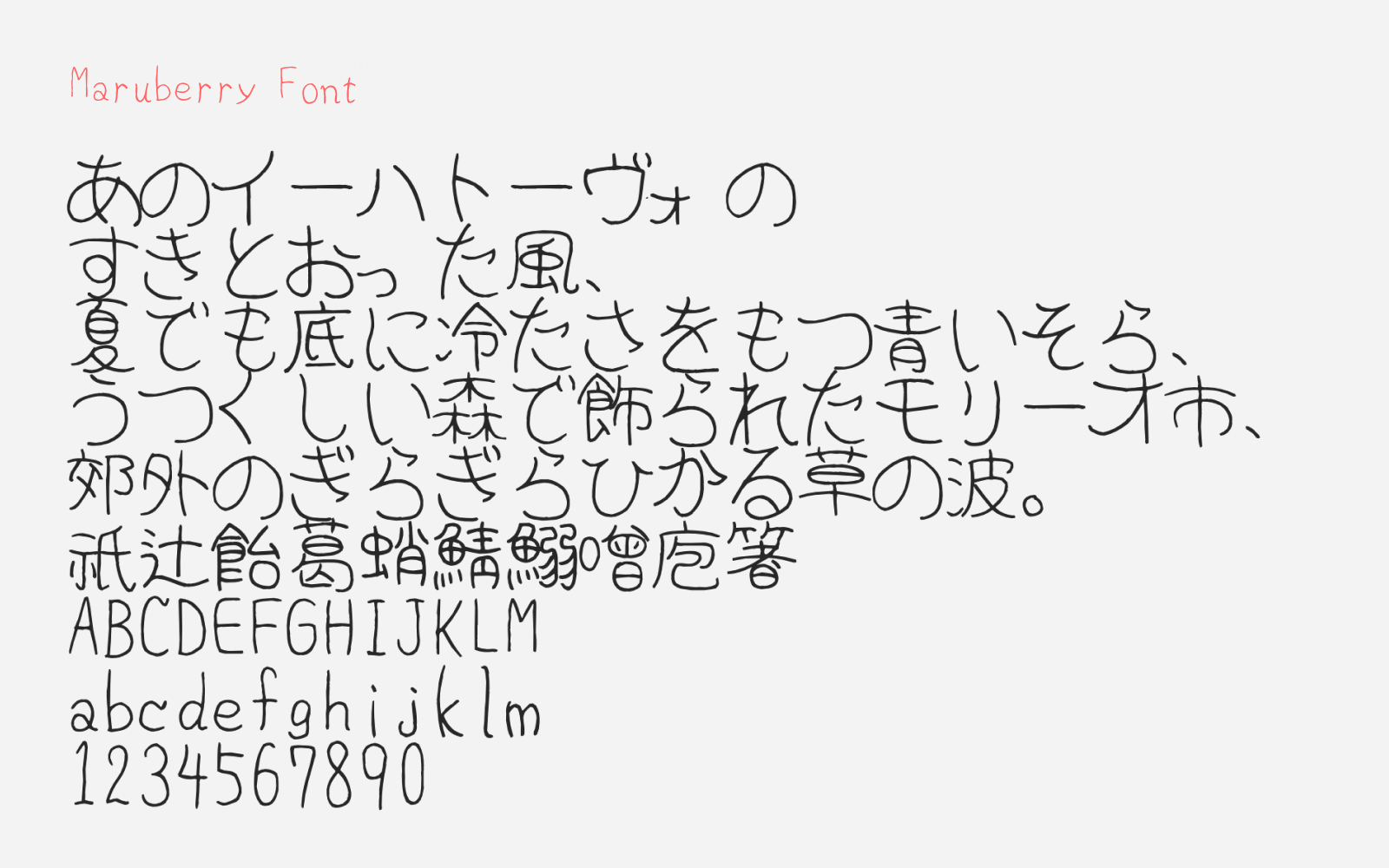
Maruberry Font
Maruberry Font (まるべりぃフォント) is a roundy and slightly funky free Japanese handwriting style font for download. It was handwritten by the font author who created Sasagaki Font and Yoppa Fude Font. The character strokes are clearly made rounded. Even on the supposedly straight vertical and horizontal lines, possessed a certain degree of curvature. I wouldn’t say it’s very unreadable, but it’s definitely a little bit more challenging handwriting style to read. Moreover, there are less kerning spaces in between the characters as the characters filled the available space to the brim. As the author mentioned, this is a handwriting style with smell of bad writing habit (癖あり).
Maruberry Font packs with a ton of letters. Besides the usual hiragana and katakana, it also comes with kanji characters that covers complete JIS Level 1 and 2 kanji plus extended kanjis. Other than that, it supports Latin, Greece and Cyrillic characters. You can download this font for free and be used on commercial projects.
• Hiragana and Katakana
• Kanji (JIS Level 1, Level 2, Extended Kanji)
• Alphanumerics
• Latin, Greece and Cyrillic characters
• Symbols and Punctuations